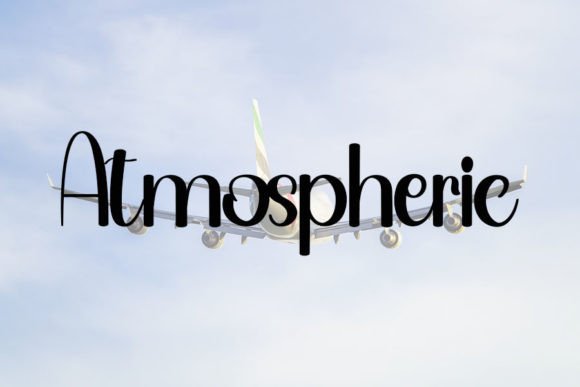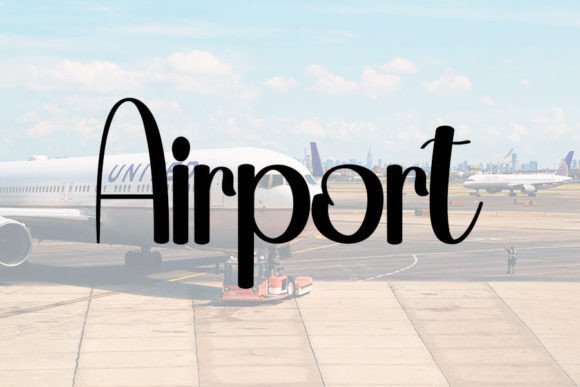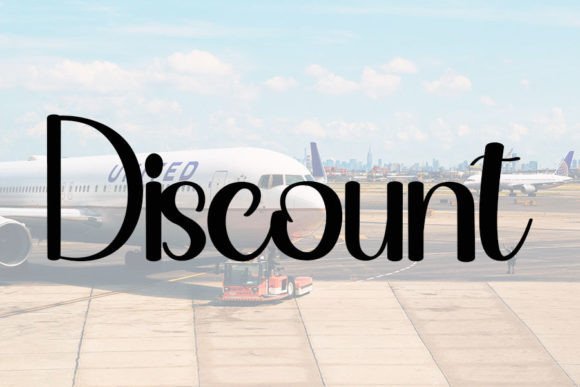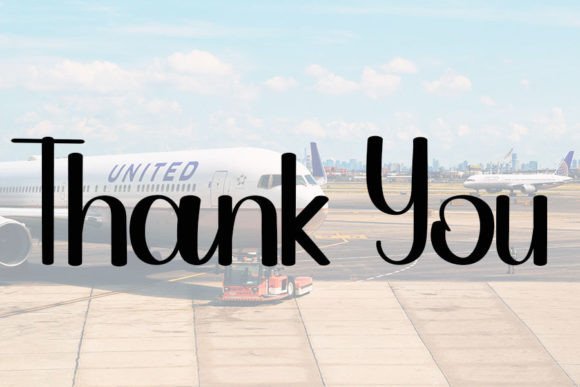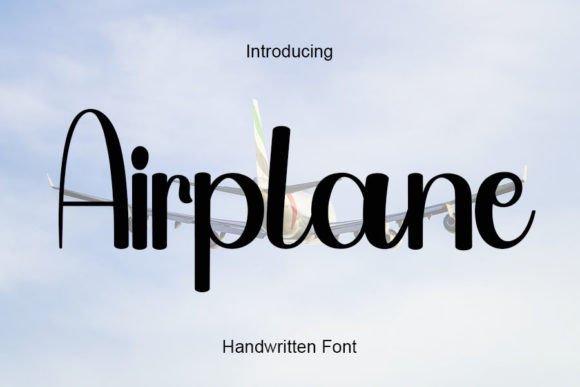
Introducing Airplane Font: Elevate Your Designs with Elegance
Are you on the hunt for a font that adds a touch of sophistication and elegance to your designs? Look no further than Airplane Font, a stunning handwritten font that is sure to capture your heart. With its unique blend of classic charm and modern flair, Airplane Font is the perfect choice for designers and crafters looking to create spectacular designs that stand out from the crowd.
The Beauty of Airplane Font
Airplane Font is a neat and beautiful handwritten font that boasts an elegant touch, making it perfect for a wide range of projects. Its incredibly distinct and timeless style is sure to fall in love with, and its versatility ensures that it can be used in a variety of contexts, from branding and advertising to packaging and digital media.
What Makes Airplane Font So Special?
So, what sets Airplane Font apart from other fonts on the market? Here are just a few reasons why this font is a cut above the rest:
- Elegant and Refined: Airplane Font features a sleek and sophisticated design that exudes elegance and refinement. Its smooth lines and flowing curves create a beautiful, high-end look that is sure to impress.
- Unique and Distinctive: With its unique blend of classic and modern elements, Airplane Font is a true standout in the world of typography. Its distinctive style ensures that your designs will be instantly recognizable and memorable.
- Highly Versatile: Whether you’re working on a branding project, creating a poster, or designing a website, Airplane Font is the perfect choice. Its flexibility and adaptability make it suitable for a wide range of applications and mediums.
- Easy to Read: Despite its elegant and refined design, Airplane Font is also highly legible, making it perfect for use in body text and other applications where readability is key.
How to Use Airplane Font in Your Designs
Ready to fall in love with Airplane Font and start using it in your designs? Here are a few tips to get you started:
- Pair it with Bold Colors: Airplane Font looks stunning when paired with bold, bright colors. Try combining it with a vibrant hue to create a striking contrast that really makes your design pop.
- Use it for Headings and Titles: Airplane Font is perfect for use in headings and titles, where its elegant and refined design can really shine. Try using it to add a touch of sophistication to your posters, flyers, and brochures.
- Experiment with Different Sizes: Airplane Font looks great in a variety of sizes, from large and bold to small and delicate. Don’t be afraid to experiment with different sizes and styles to find the perfect look for your design.
Airplane Font is a perfect choice for designers and crafters looking to add a touch of elegance and sophistication to their projects. Whether you’re working on a professional design project or simply looking for a beautiful font to use in your crafting projects, Airplane Font is sure to impress.
From DIY enthusiasts to professional designers, Airplane Font is a versatile and beautiful font that is sure to inspire. Its unique blend of classic charm and modern flair makes it perfect for a wide range of applications, from:
- Branding and Advertising: Use Airplane Font to create stunning logos, advertisements, and marketing materials that really stand out.
- Packaging and Labeling: Add a touch of elegance to your packaging and labeling with Airplane Font, perfect for use on product labels, packaging materials, and more.
- Digital Media: Use Airplane Font to create stunning digital media, including social media graphics, blog posts, and website designs.
- Crafting and DIY Projects: Add a touch of sophistication to your crafting and DIY projects with Airplane Font, perfect for use on signs, banners, and other decorative items.
In conclusion, Airplane Font is a beautiful and elegant handwritten font that is perfect for designers and crafters looking to add a touch of sophistication to their projects. With its unique blend of classic charm and modern flair, Airplane Font is sure to inspire and elevate your designs. So why wait? Fall in love with Airplane Font today and start creating spectacular designs that really stand out!